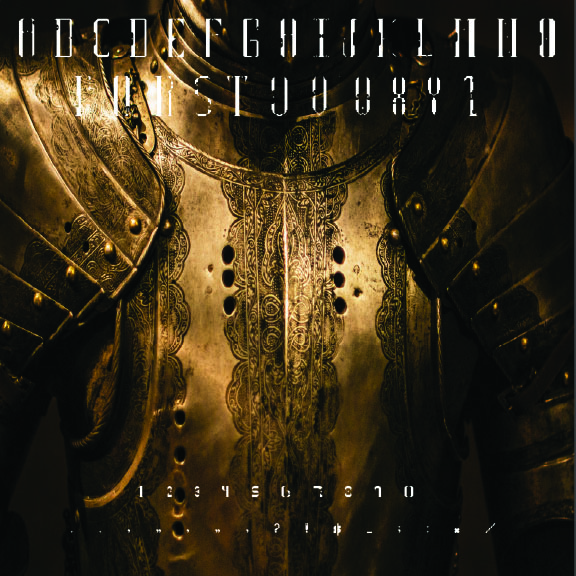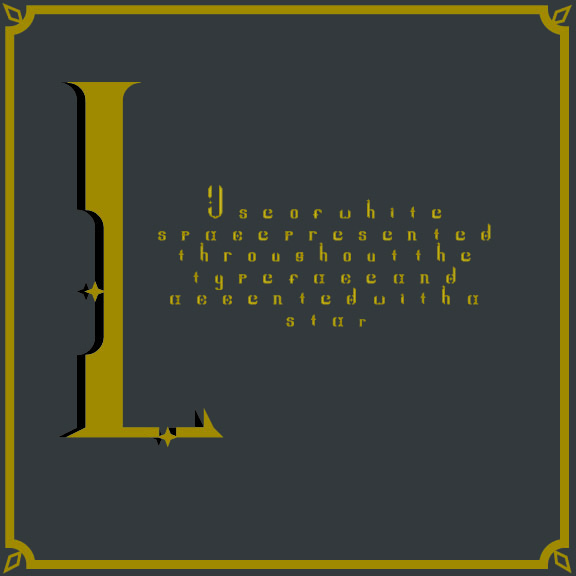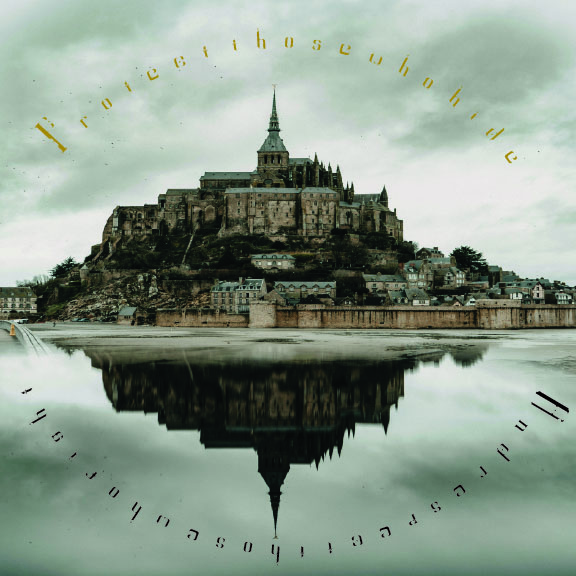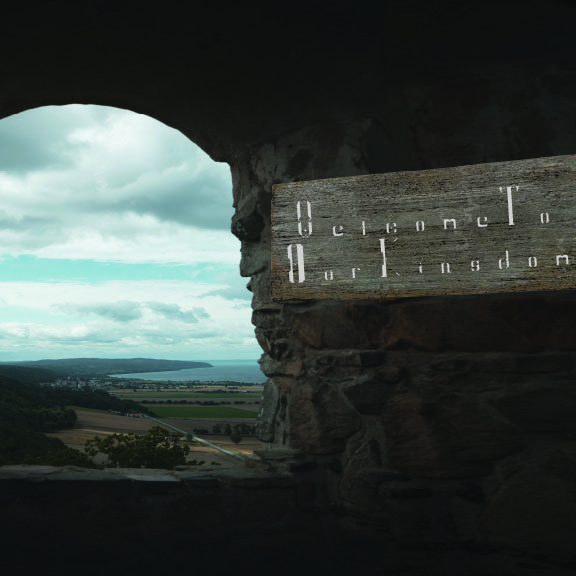
• a typeface utilizing negative space, creative and unique shapes, and stares to give it a strong, magical, and affective personality.
Leviathanby Raynita